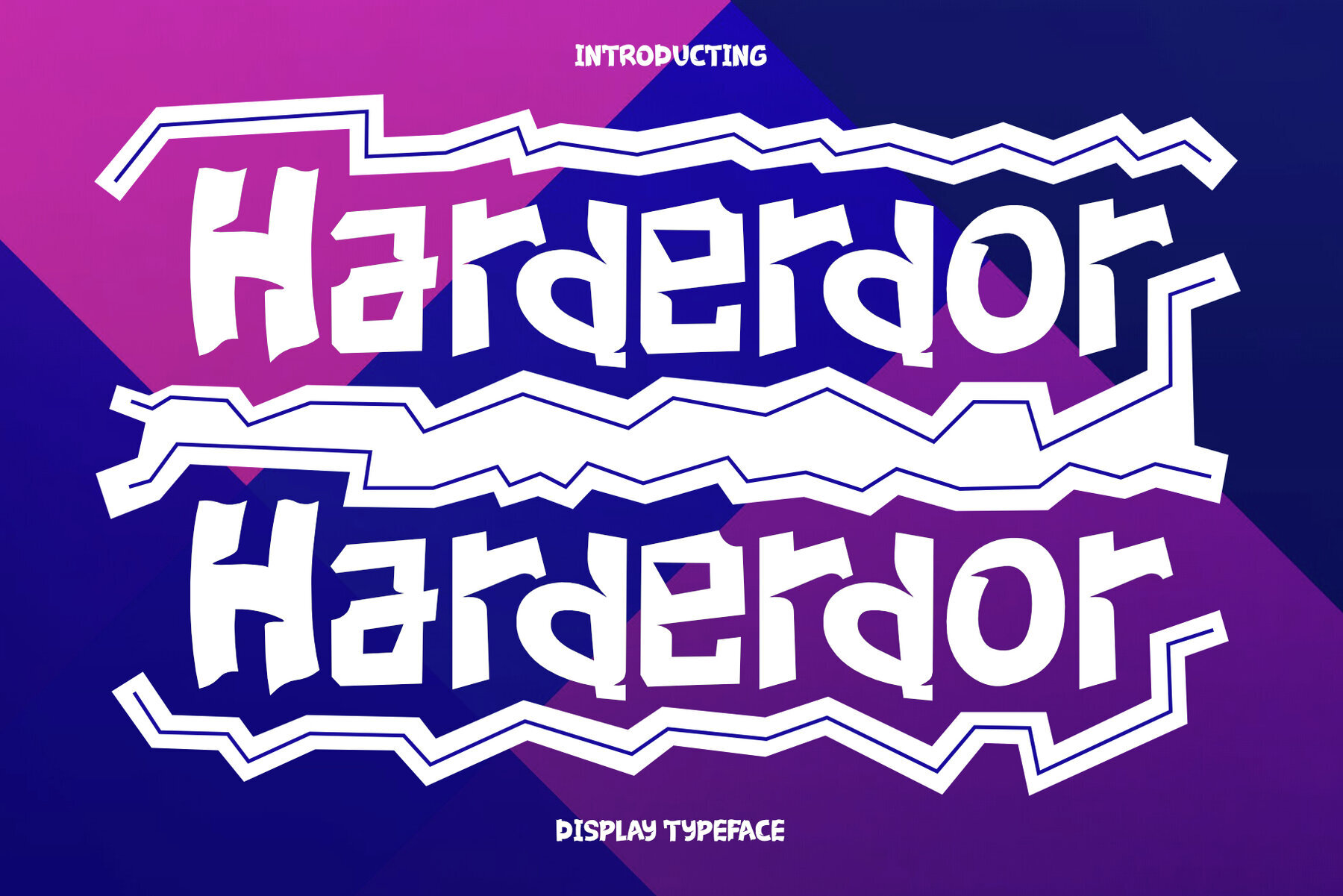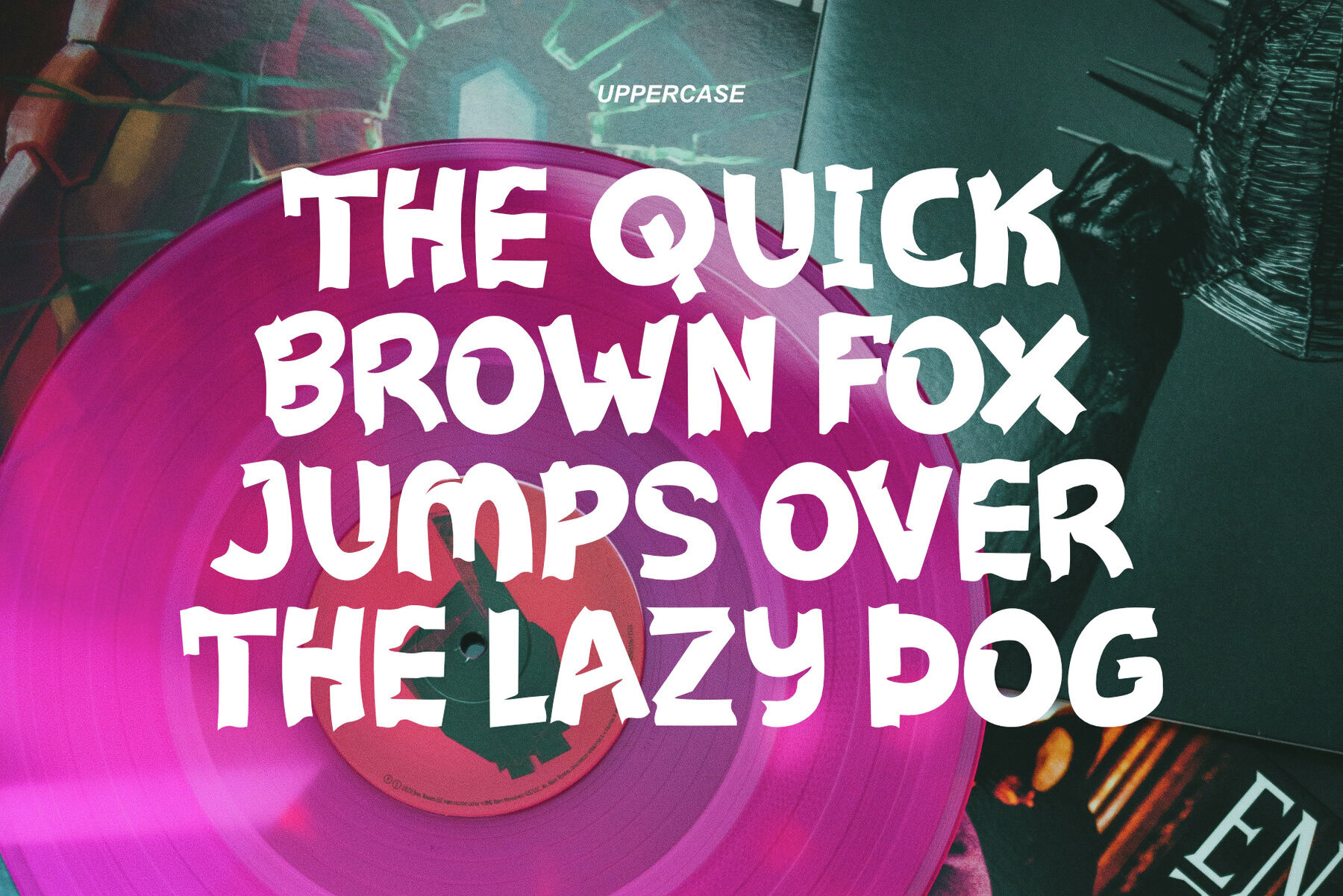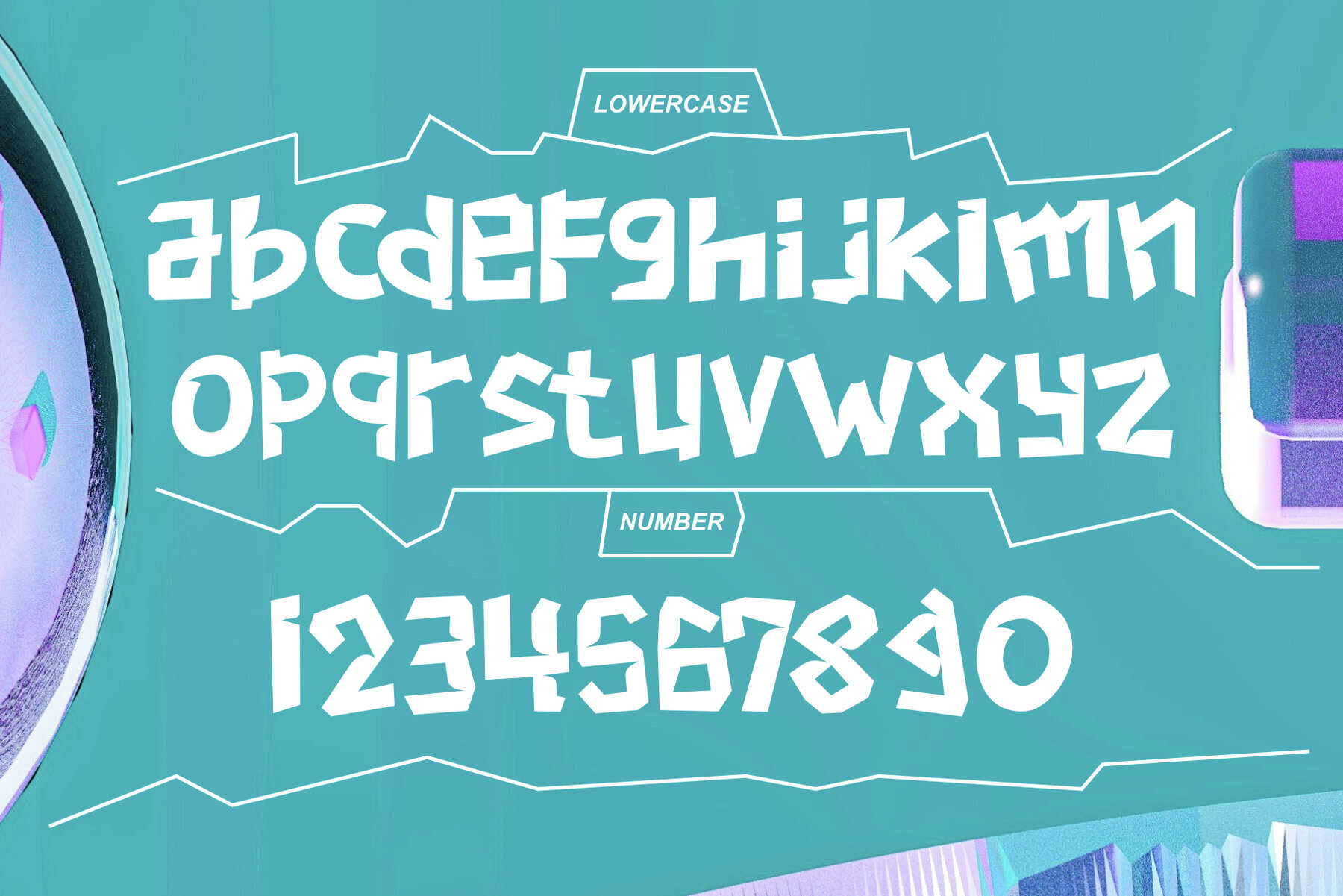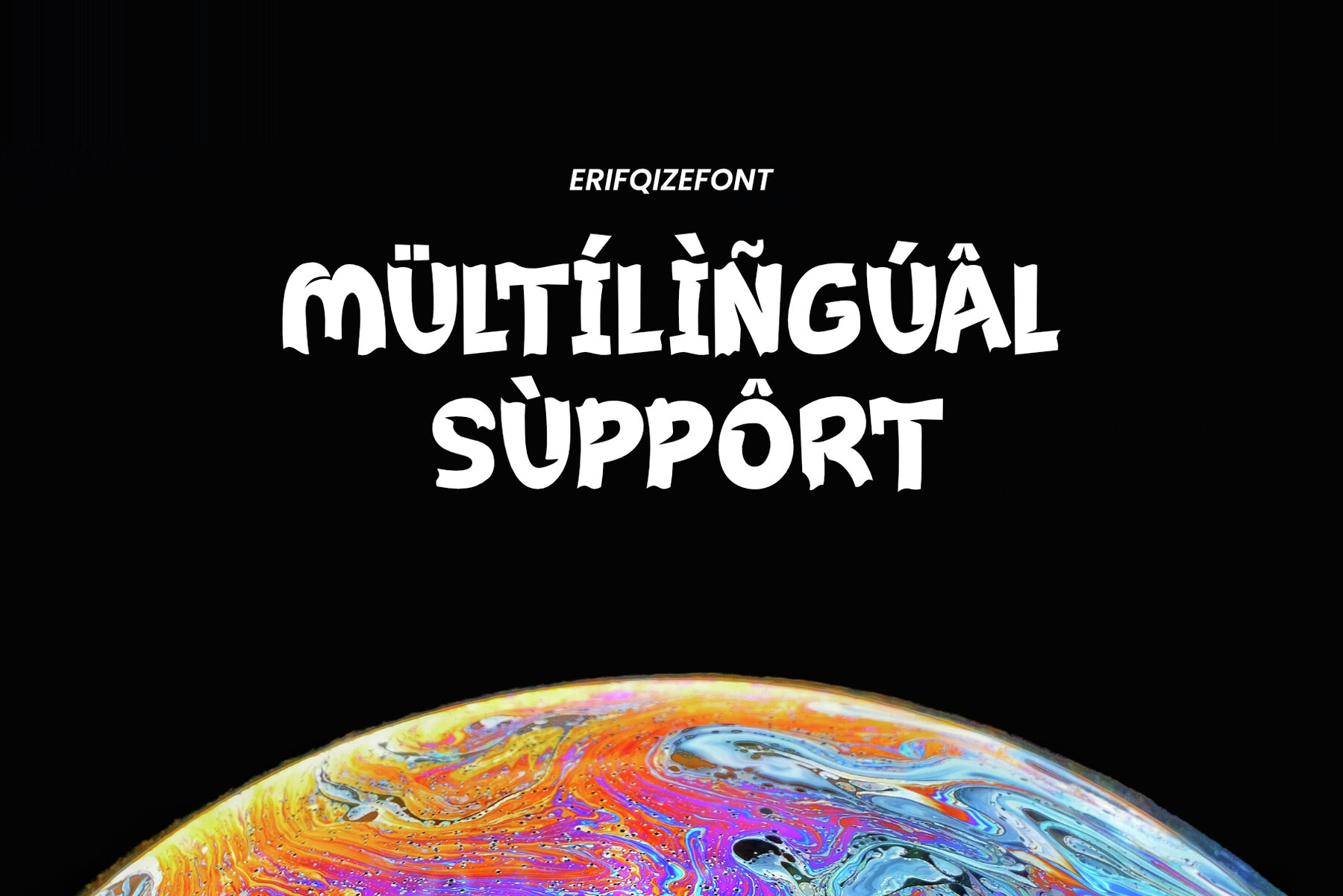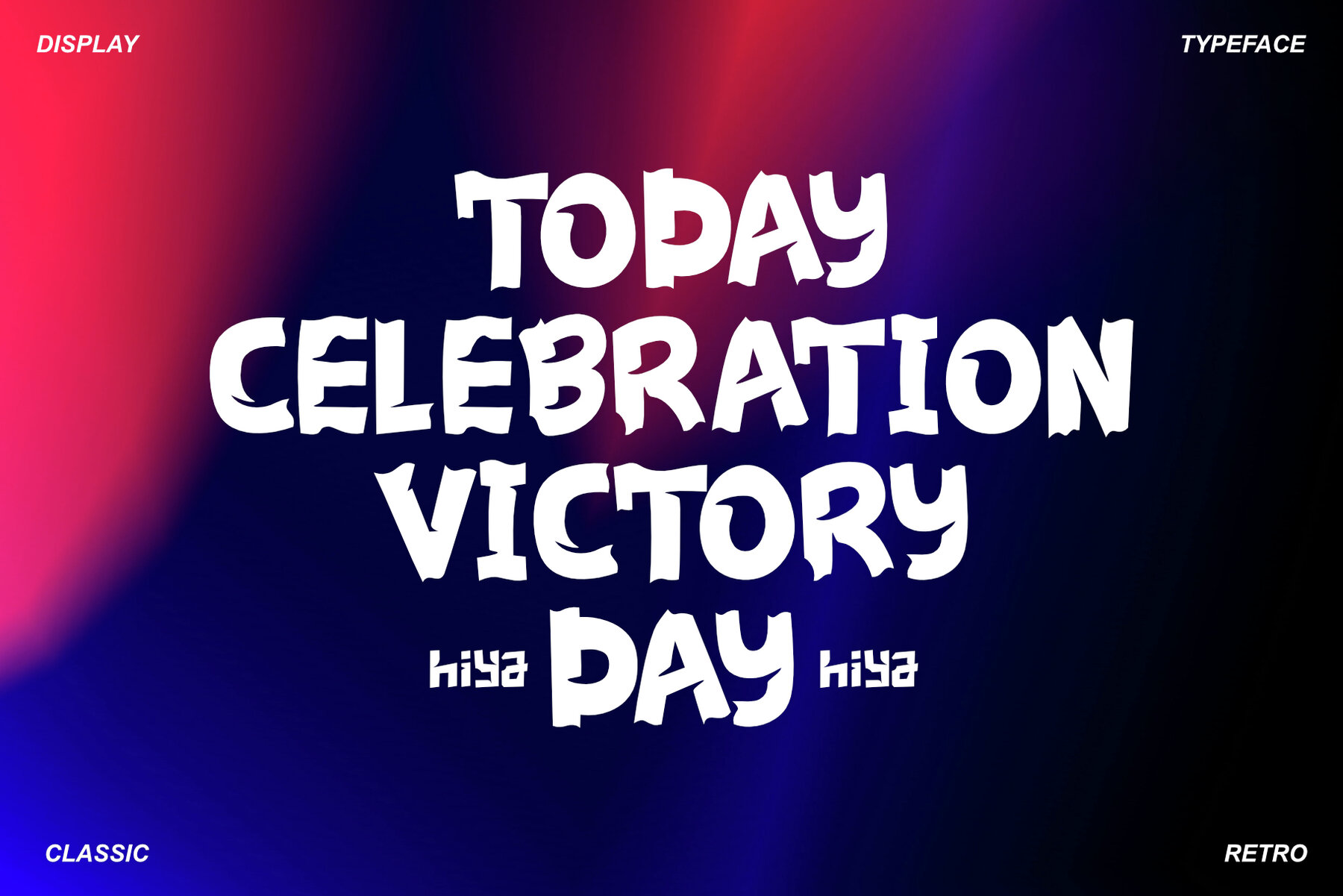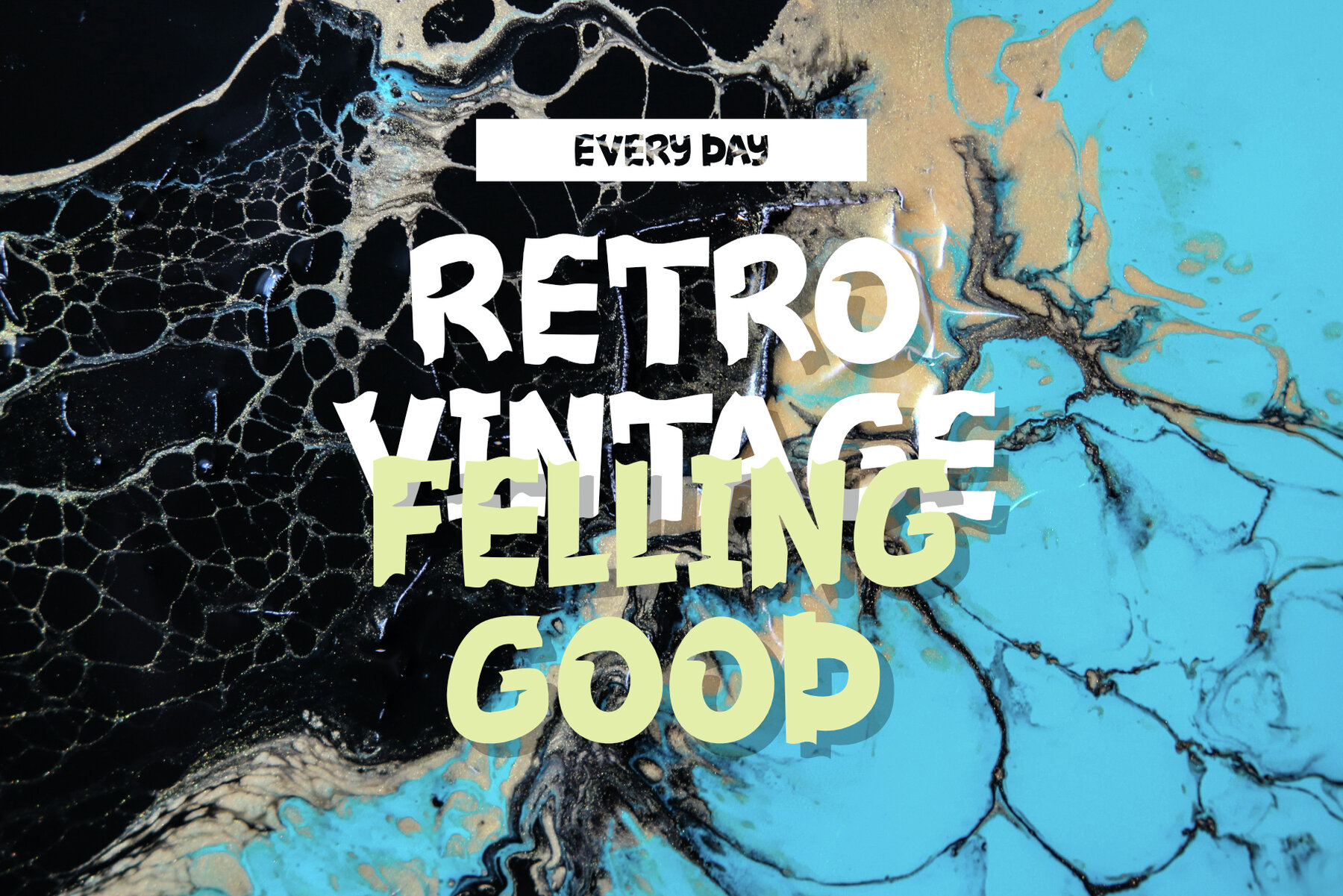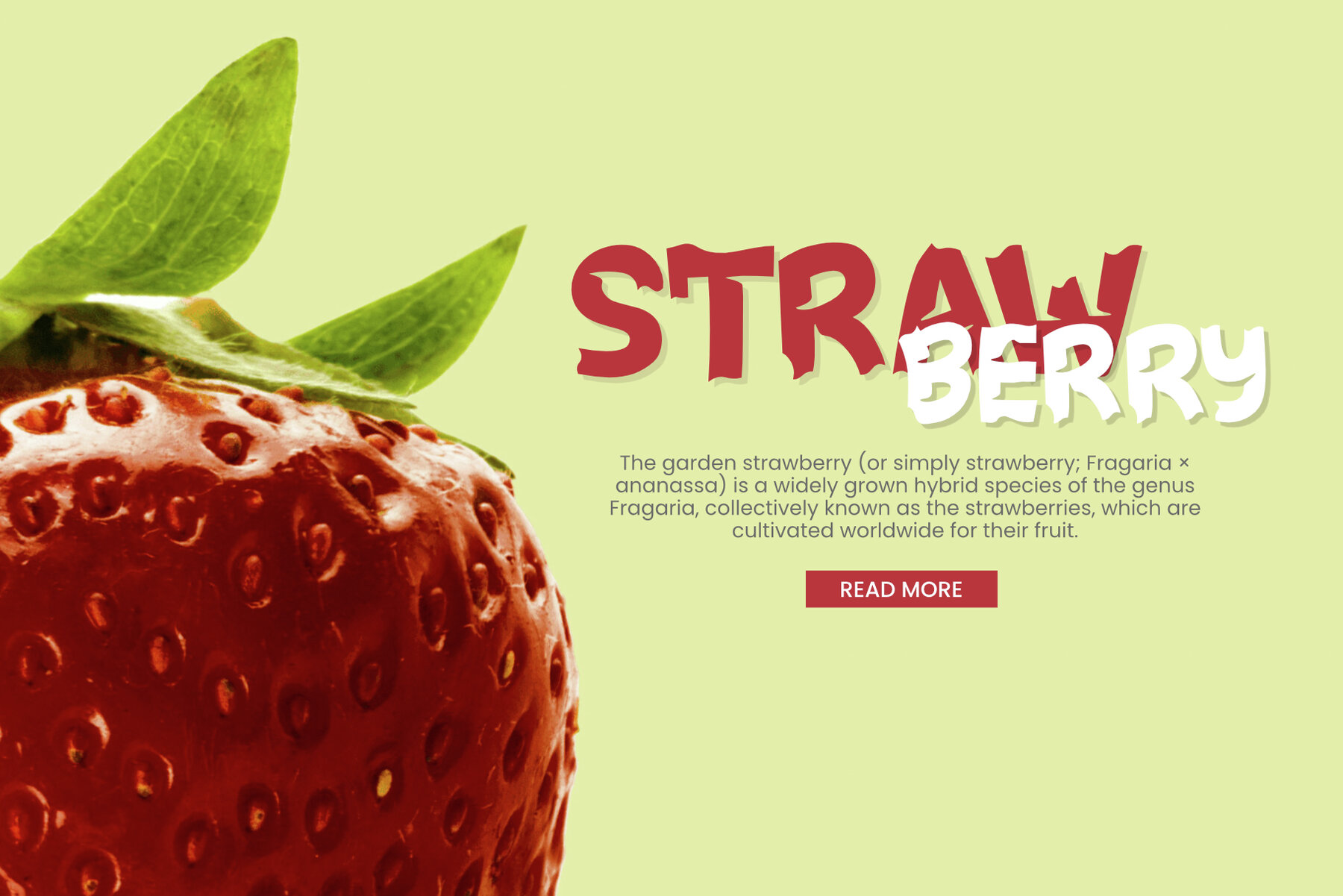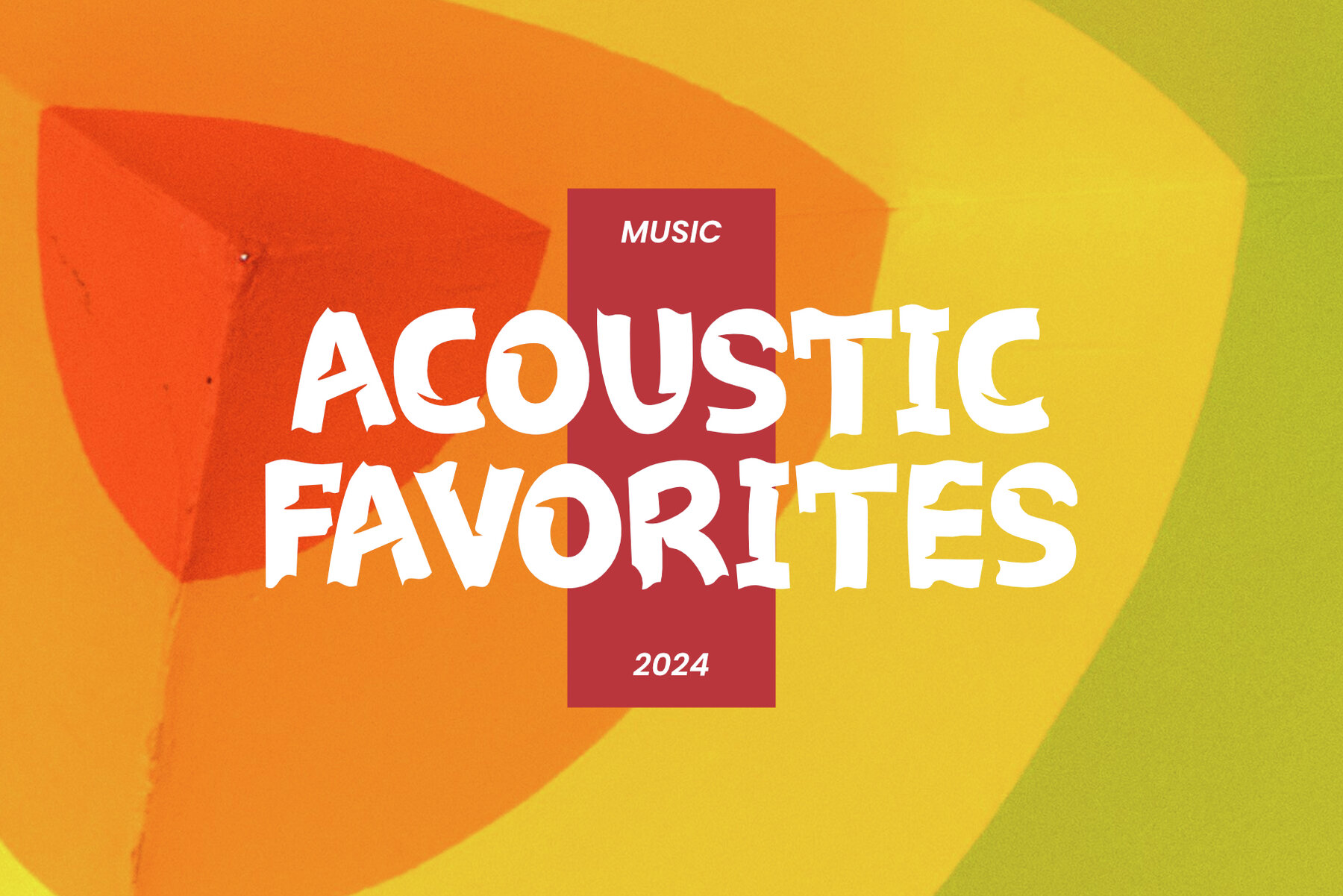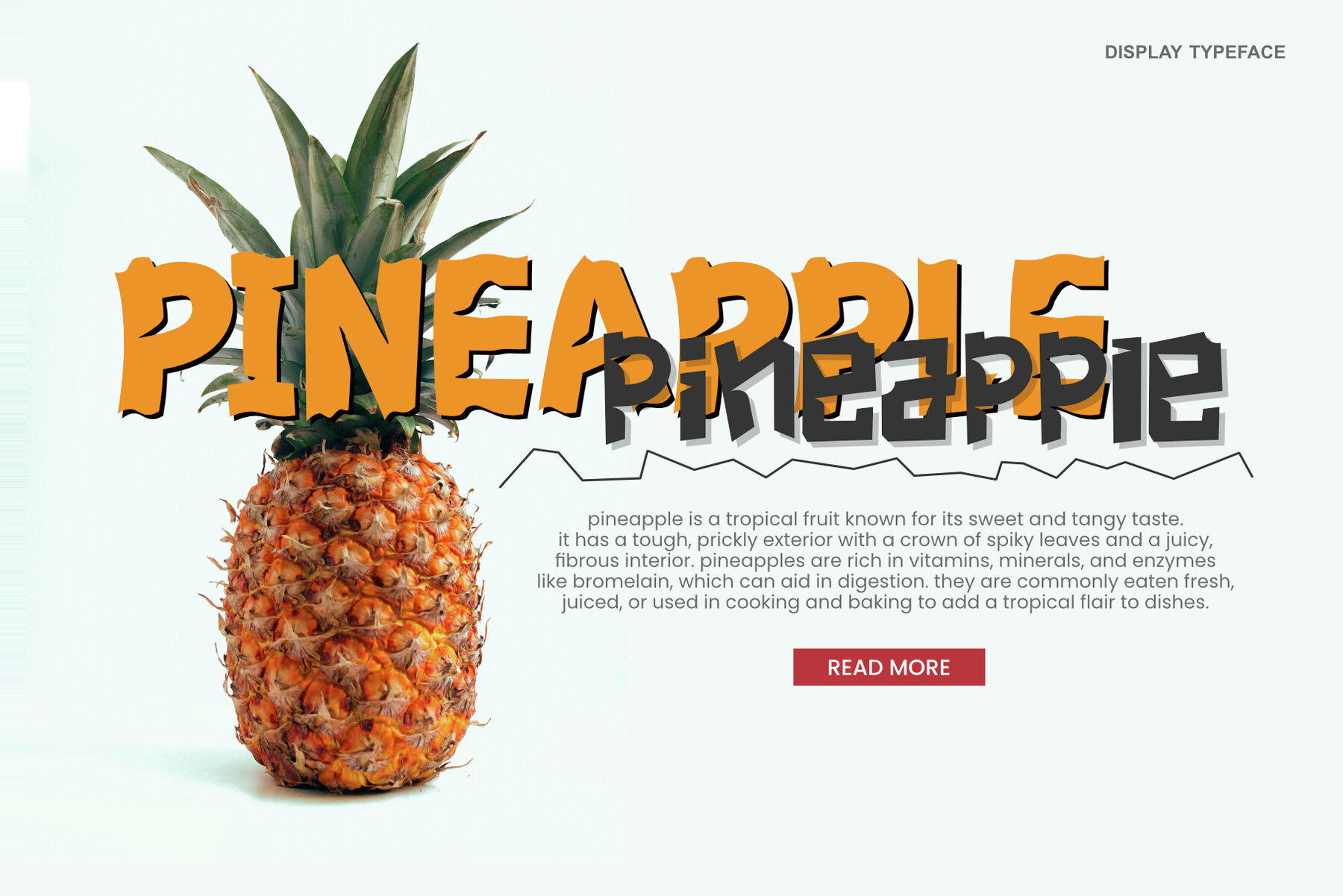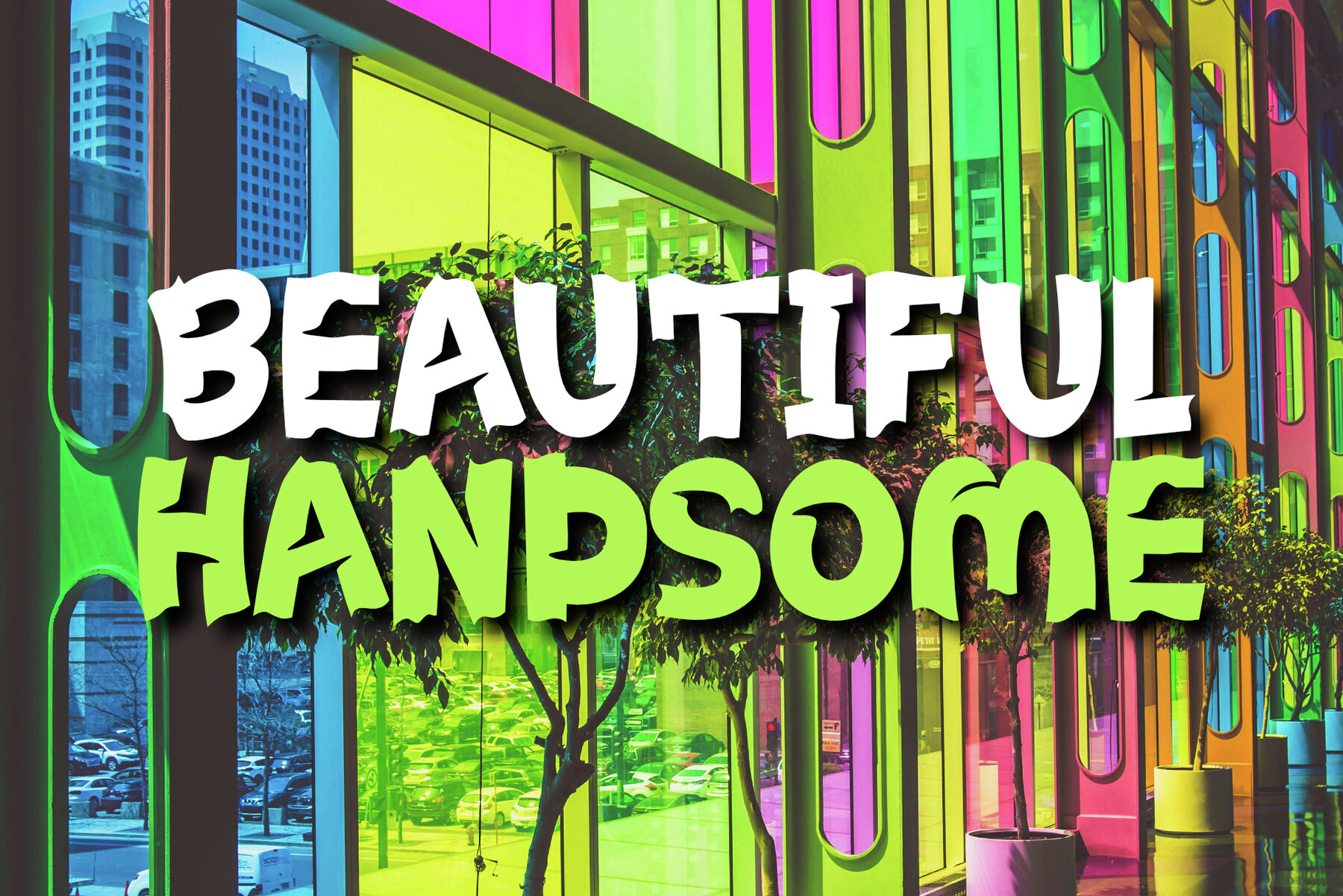
Harderdor Font
Harderdor Black
Infuse your designs with joy and creativity using Harderdor, a bold, sans-serif display font inspired by playful cartoons. This cheerful typeface features strong, expressive letterforms that capture attention and spark imagination. Whether for posters, comic titles, or children's projects, Harderdor adds a burst of humor and happiness to every design. Let Harderdor bring your ideas to life with personality and charm, ensuring a fun and lively spirit in every application.Harderdor: Playful Cartoon Display Font